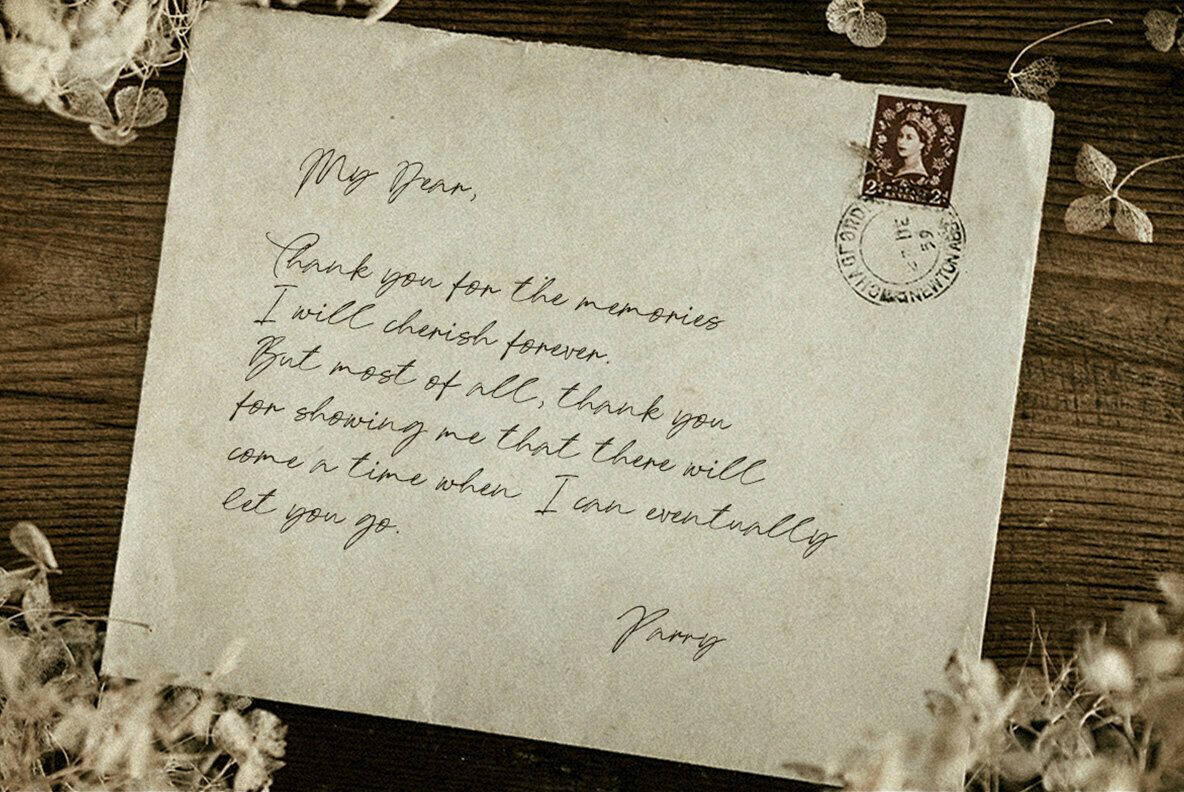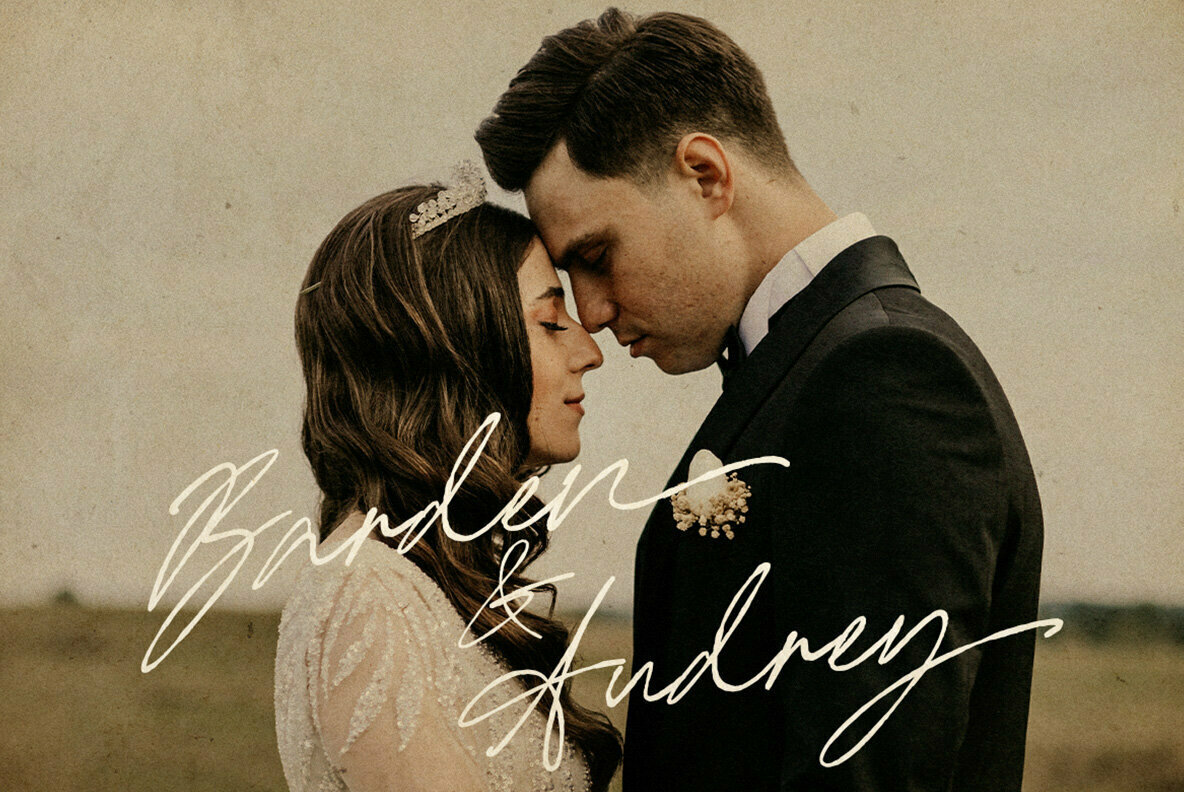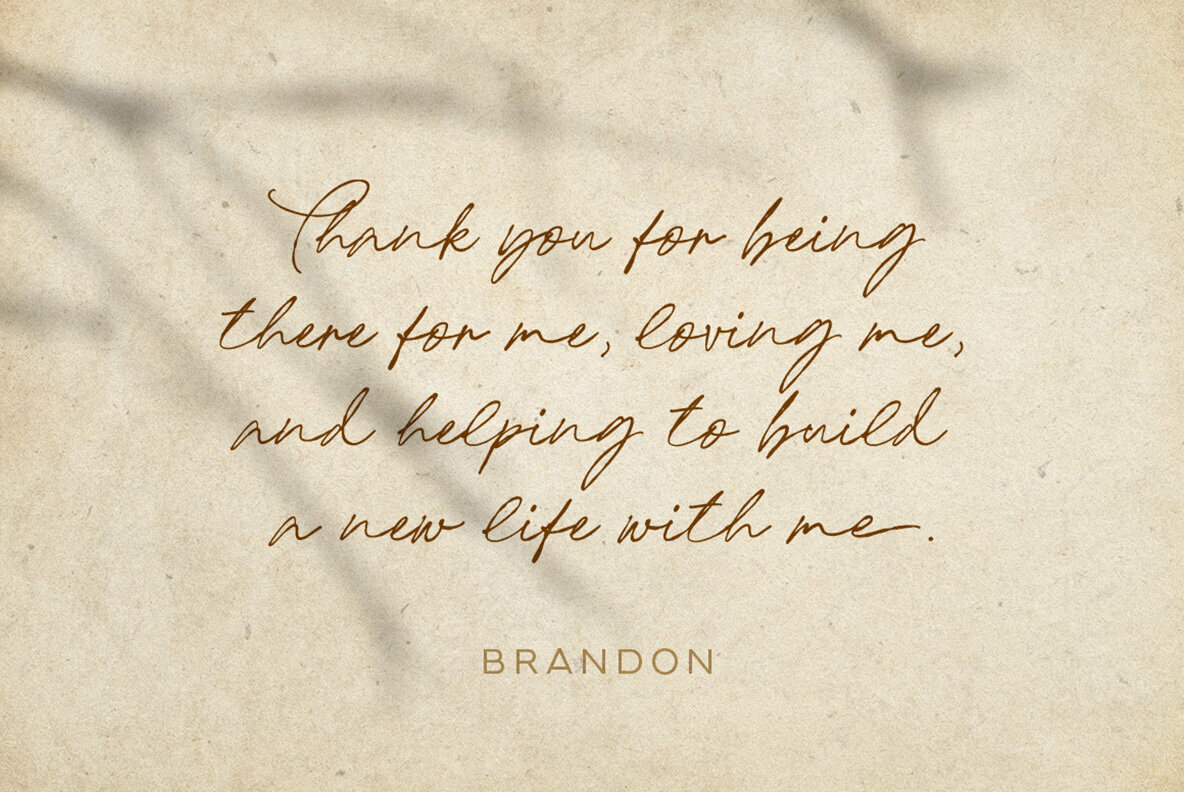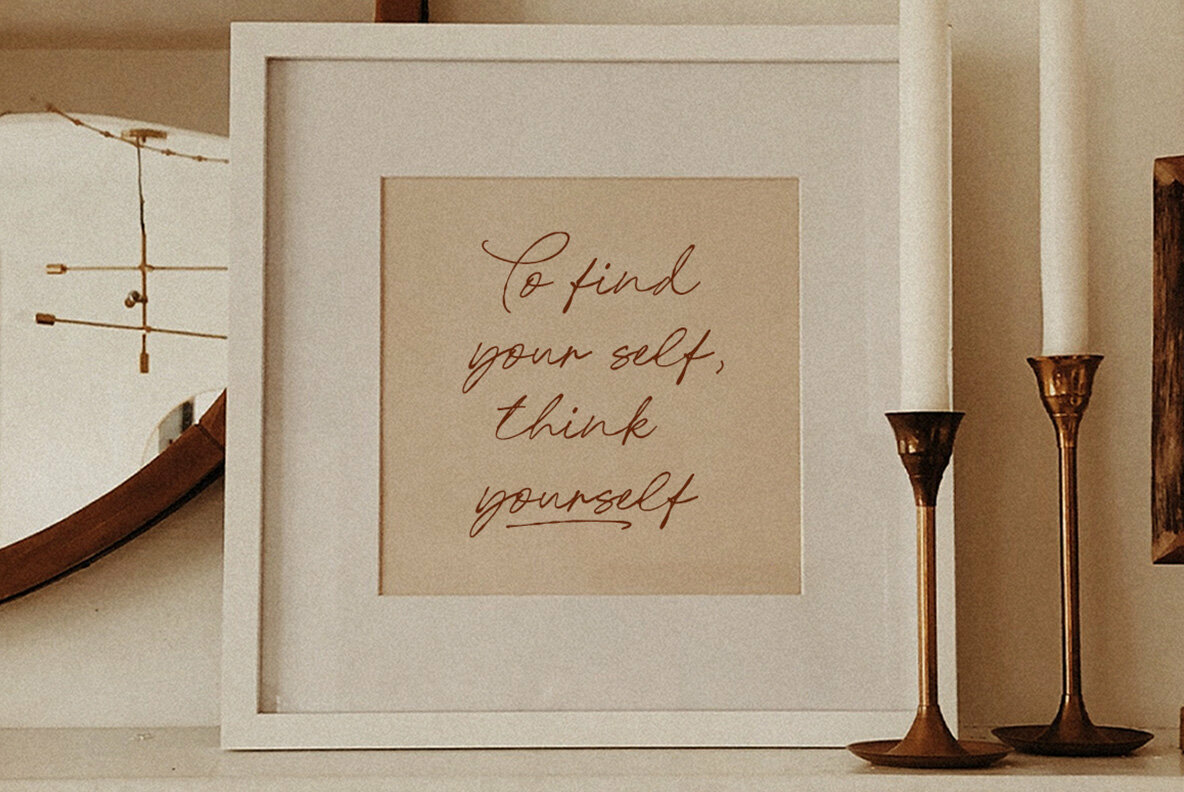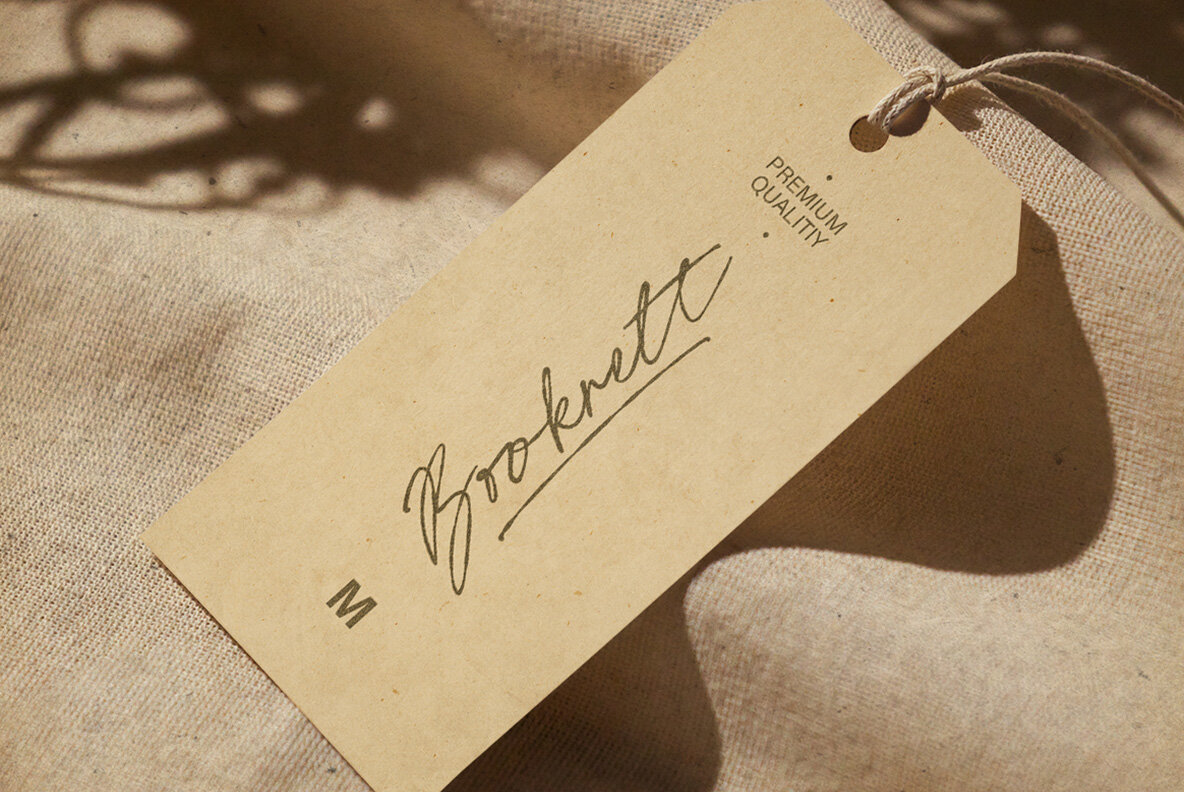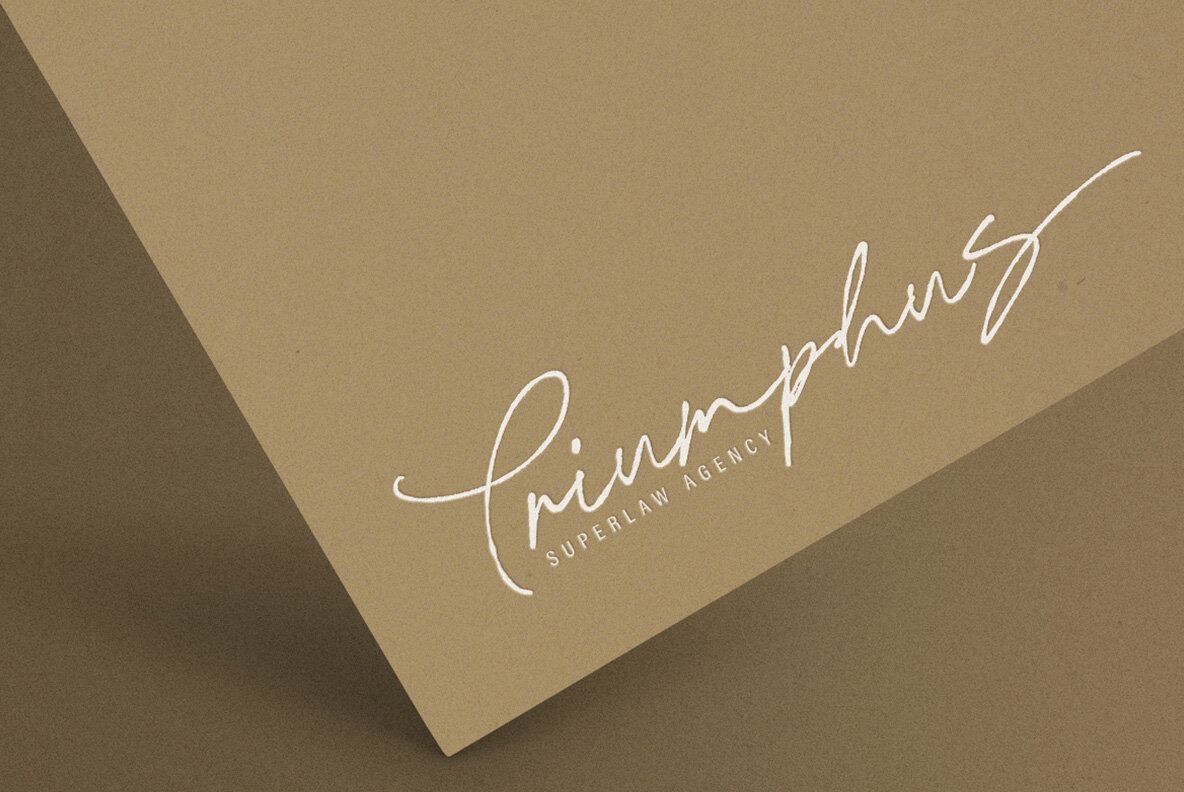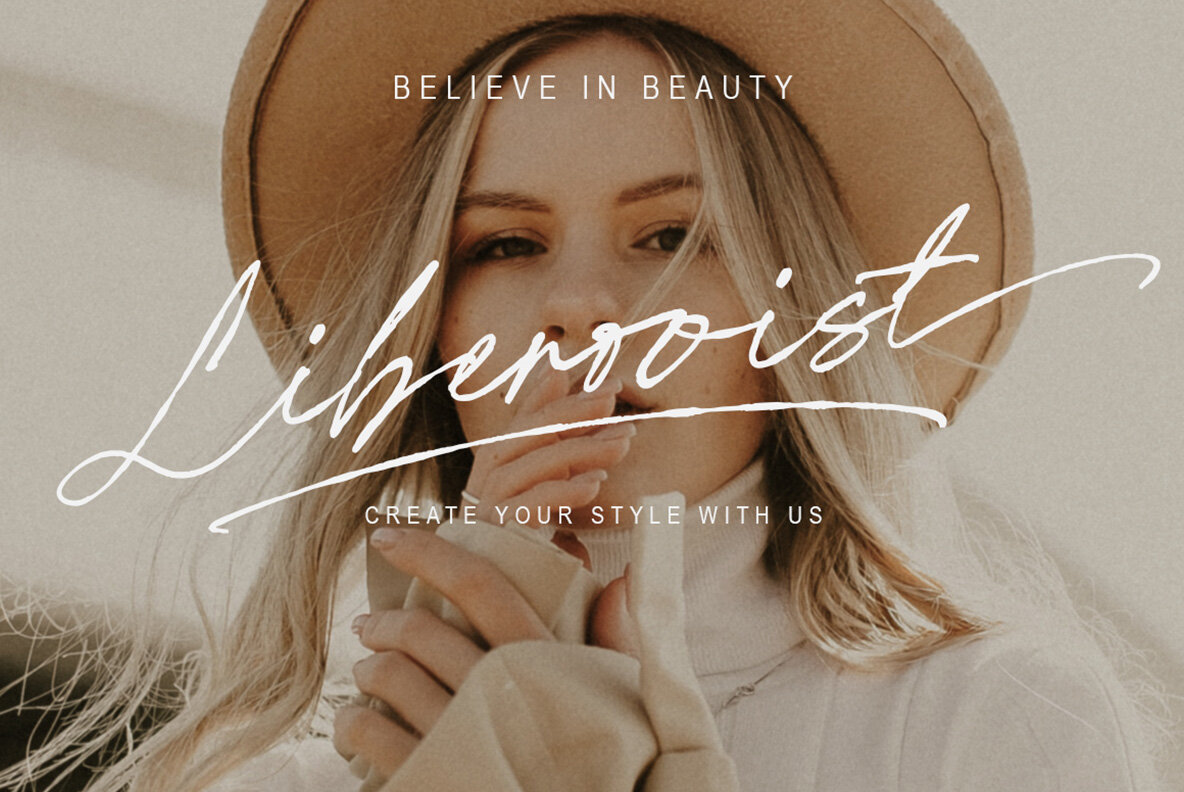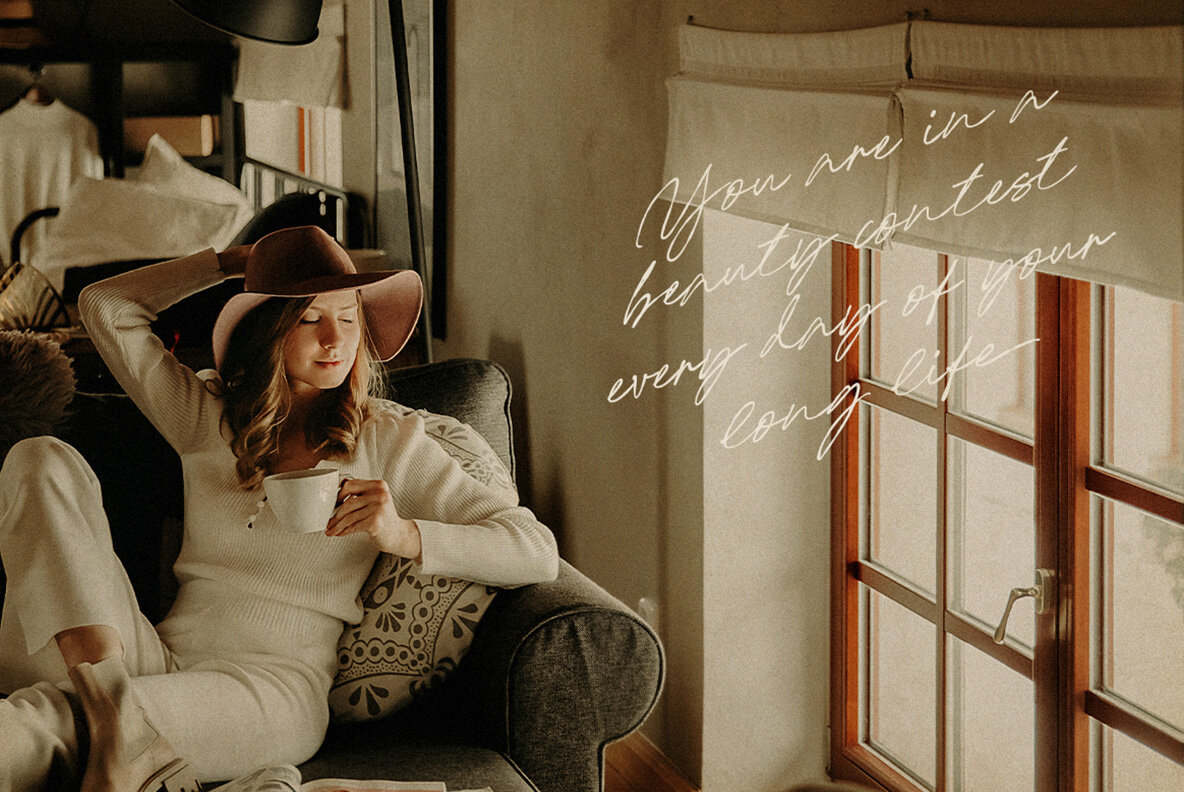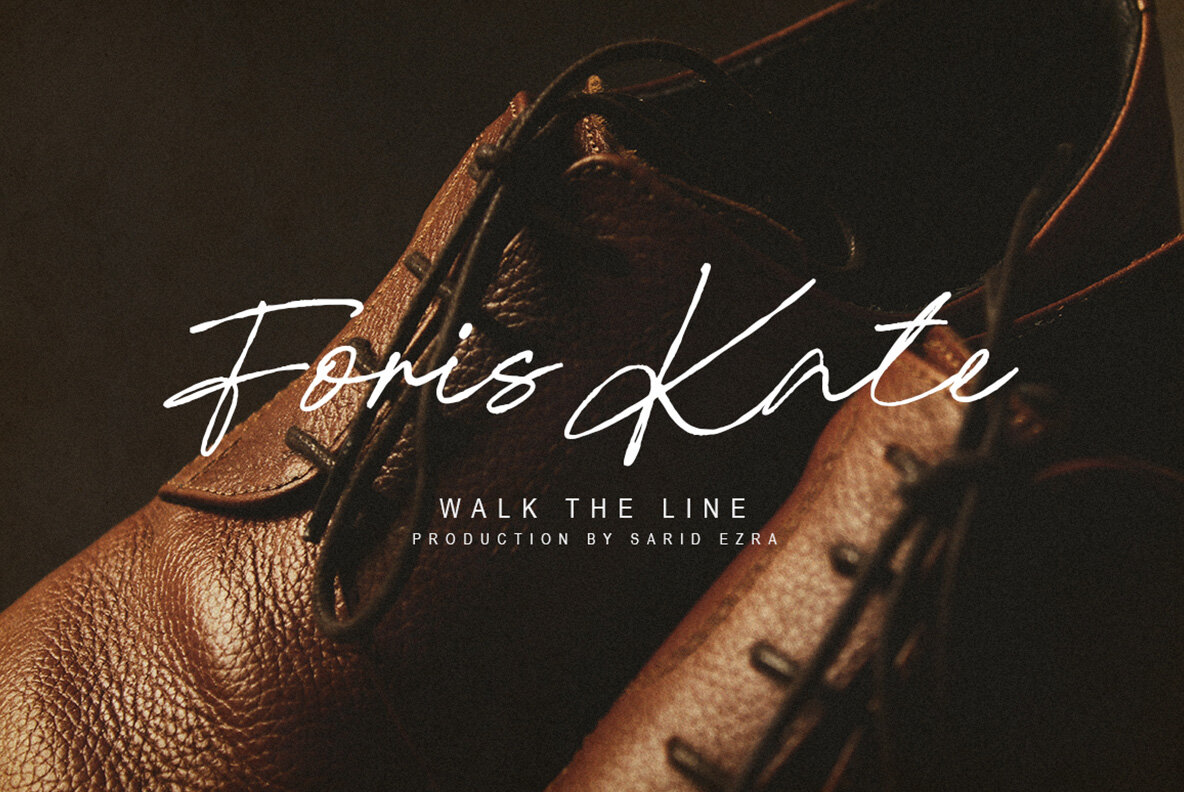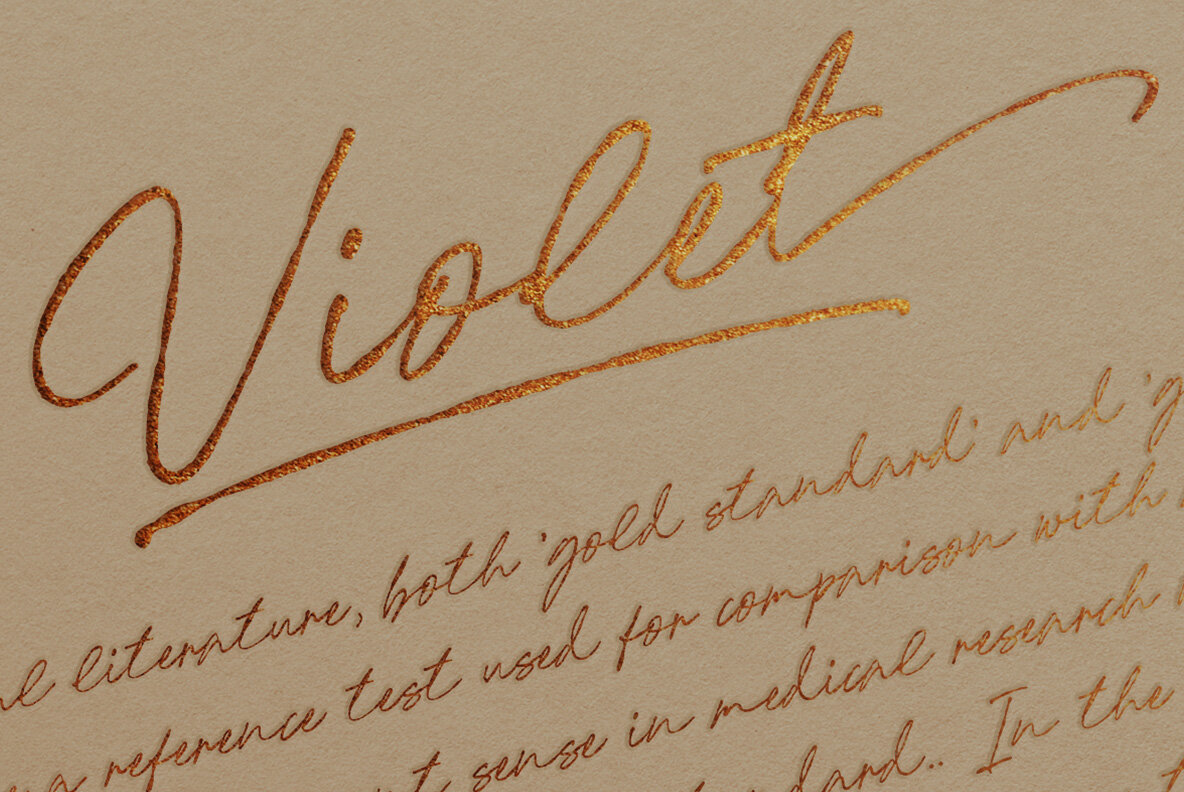
Nice Memory Font
Nice Memory Regular
Nice Memory offers a charming blend of nostalgia and elegance, capturing the essence of signature handwriting with its rough, natural shapes. Perfect for projects aiming to evoke a sense of vintage allure, this script font effortlessly infuses personality into your designs, whether you're crafting wedding invitations, branding materials, or timeless quotes.Nice Memory: Nostalgic Script for Vintage Appeal
Capture the warmth of nostalgia in your designs with Nice Memory, where elegance meets authenticity.